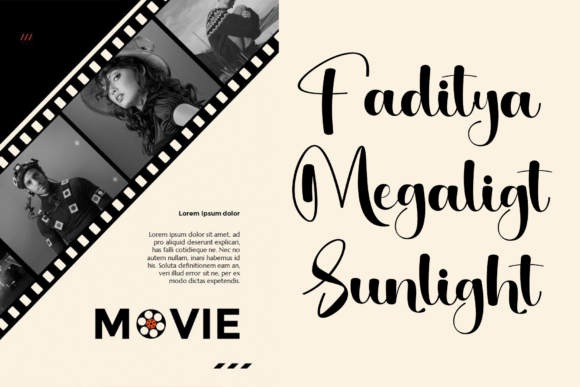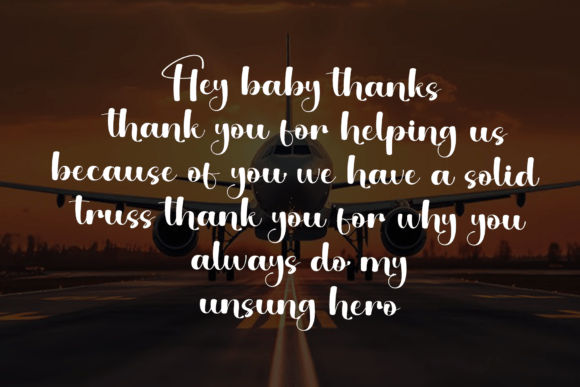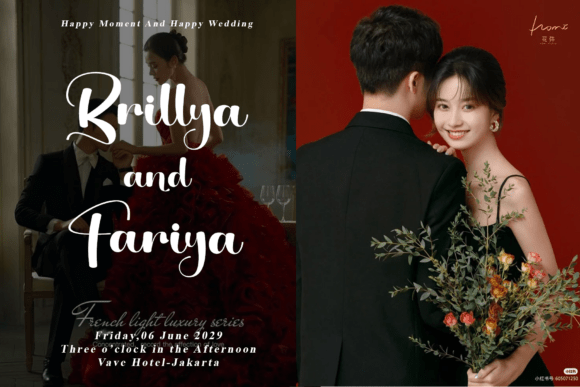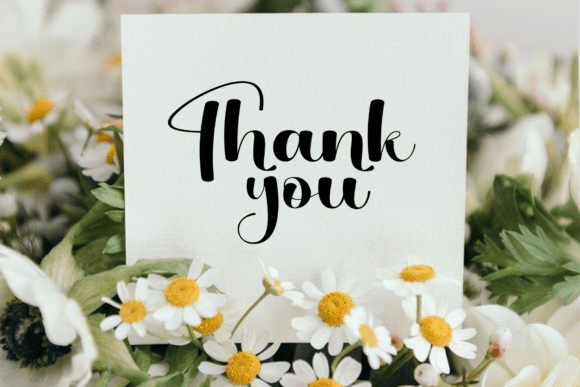
Introduction to Righty Handy Font
As a designer, there’s nothing quite like the thrill of bringing a creative project to life. You spend hours pouring over sketches, experimenting with colors, and perfecting every detail. But sometimes, it’s the smallest element that can make all the difference – like the perfect font. And that’s where the Righty Handy Font comes in. With its elegant, modern design and smooth strokes, this font is the perfect addition to any high-quality design.
Whether you’re working on a custom sublimation design, creating boutique branding, or crafting personalized gifts, the Righty Handy Font is a valuable resource that’s sure to elevate your work. Its clean connections and consistent weight ensure excellent legibility, making it a top choice for designers looking to create beautiful and functional designs. And the best part? You can download it for free, giving you the freedom to experiment and push the boundaries of your creativity.
As a design resource, the Righty Handy Font offers a level of sophistication and style that’s hard to find in other fonts. With its transparent background, it’s perfect for use on custom stationery, invitations, and other projects where a subtle touch is needed. So why settle for a generic font when you can add a touch of elegance with the Righty Handy Font?
Key Features of Righty Handy Font
- High-quality design: The Righty Handy Font is a carefully crafted design resource perfect for any creative project.
- Unique characteristics: The Righty Handy Font features a distinctive, hand-drawn style that adds a touch of personality to any creative project.
- Easy to customize: With its clean design and transparent background, this font is easy to customize and pair with other design elements.
Honest Review: Righty Handy Font
As a designer, I’m always on the lookout for high-quality design resources to elevate my creative projects. The Righty Handy Font caught my attention, and I was eager to put it to the test.
- ✨ The font has a unique and quirky feel to it, making it perfect for adding a touch of personality to my designs.
- ⚠️ The font is not as versatile as some of the other fonts I’ve worked with, making it more suited for specific design projects.
Overall, I’m impressed with the Righty Handy Font’s unique character and ease of use. While it may not be the most versatile font, it’s a great addition to any designer’s toolkit, especially for those looking to add a playful touch to their creative projects.
How to Use Righty Handy Font
The Righty Handy Font is a high-quality design resource that offers a unique and creative touch to your projects. With a transparent background, this font is perfect for adding a personal touch to your designs.
Tips for Getting the Most Out of Righty Handy Font
To get the most out of the Righty Handy Font, use it in combination with other design resources to create a unique and high-quality design. Experiment with different font sizes, colors, and arrangements to find the perfect look for your project.
Common Use Cases for Righty Handy Font
The Righty Handy Font is perfect for a wide range of creative projects, including:
The Righty Handy Font is available in high-resolution formats, making it suitable for use in various design resources, including print materials and digital designs. The font files are designed to work well at resolutions of up to 300 DPI.
Does the Righty Handy Font have a transparent background?
Yes, the Righty Handy Font has a transparent background, making it easy to use in designs with complex backgrounds. This feature allows for seamless integration of the font into your creative project, ensuring a professional-looking result.